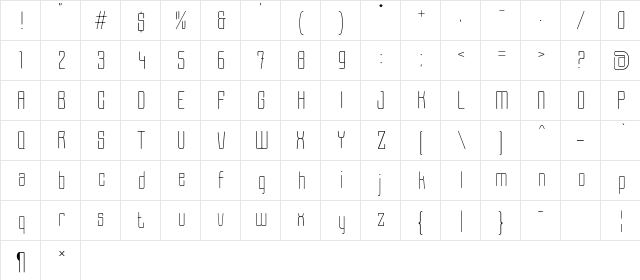
Grage Thin Regular
| Designer | Emanes Dsign |
Design Context for Grage Thin Typeface
Grage Thin takes a measured approach to typography — its balanced proportions and neutral character make it a reliable workhorse for both digital and print work. Its slender proportions lend an understated elegance to any composition.